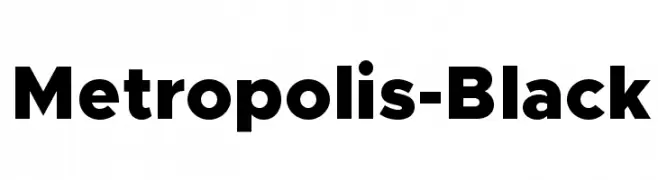
A bold, modern sans-serif font with clean, geometric lines.
A bold, modern sans-serif font with strong, uniform strokes.
A sharp, elongated font with a mysterious and eerie style.
A bold, blocky font with a strong, sports-inspired design.
A clean, geometric typeface with a modern and elegant design.
What are the top fonts right now?
Currently, the most downloaded and loved typefaces include Metropolis-Black, Inheritance Font, Oswald Heavy, Tangled and NFL Eagles. They dominate modern branding and digital design thanks to their readability and strong visual personality. These fonts adapt beautifully to websites, posters, and social media graphics.